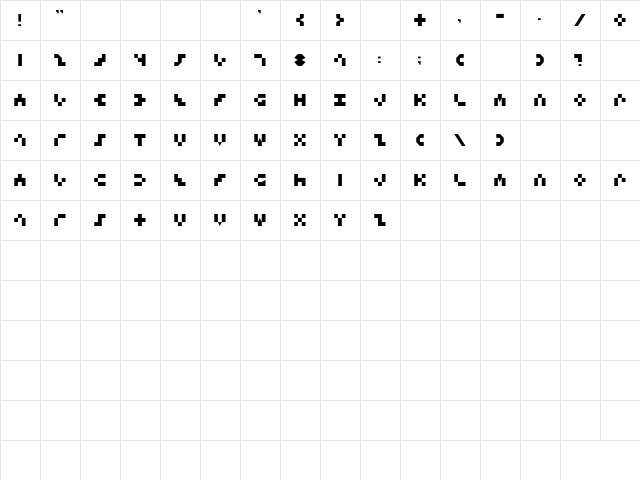
Malcorian Bold Free Font
Malcorian Bold
Design Context for Malcorian
Malcorian is a composed and adaptable typeface that performs quietly and consistently across a wide range of design contexts. Its bold stroke weight gives it real presence on the page.